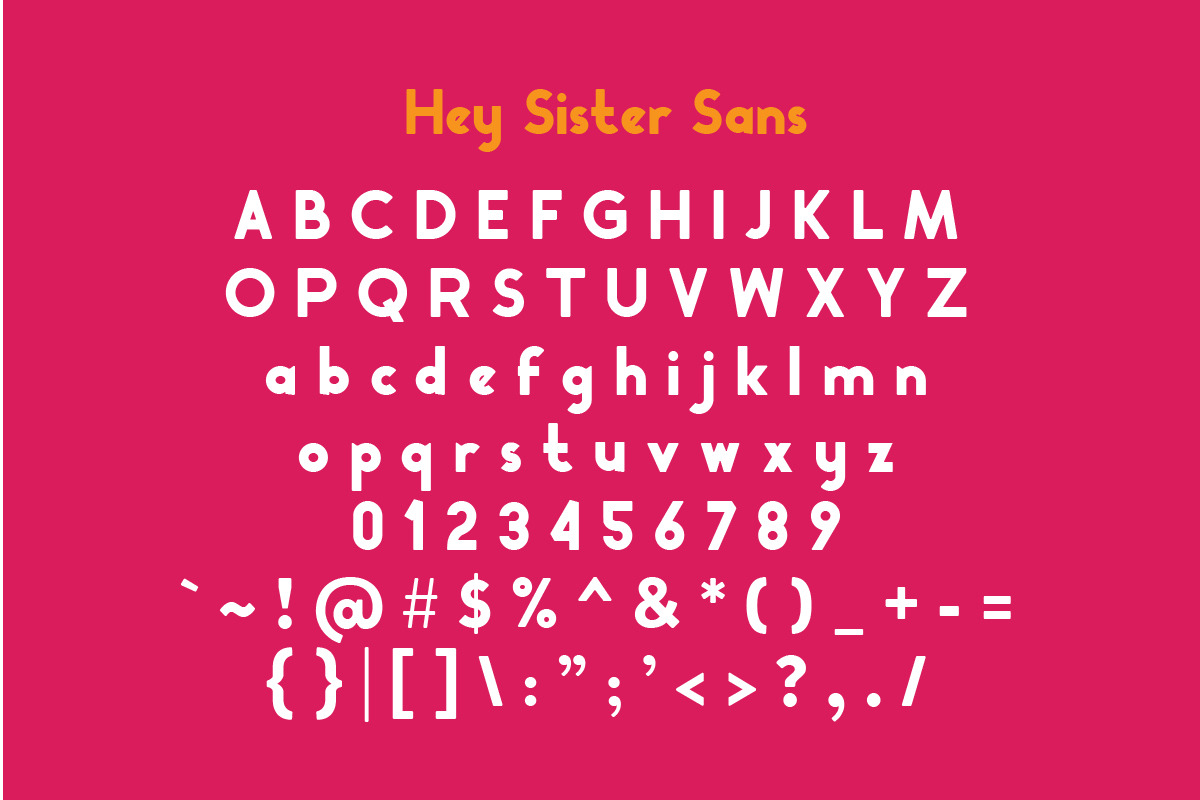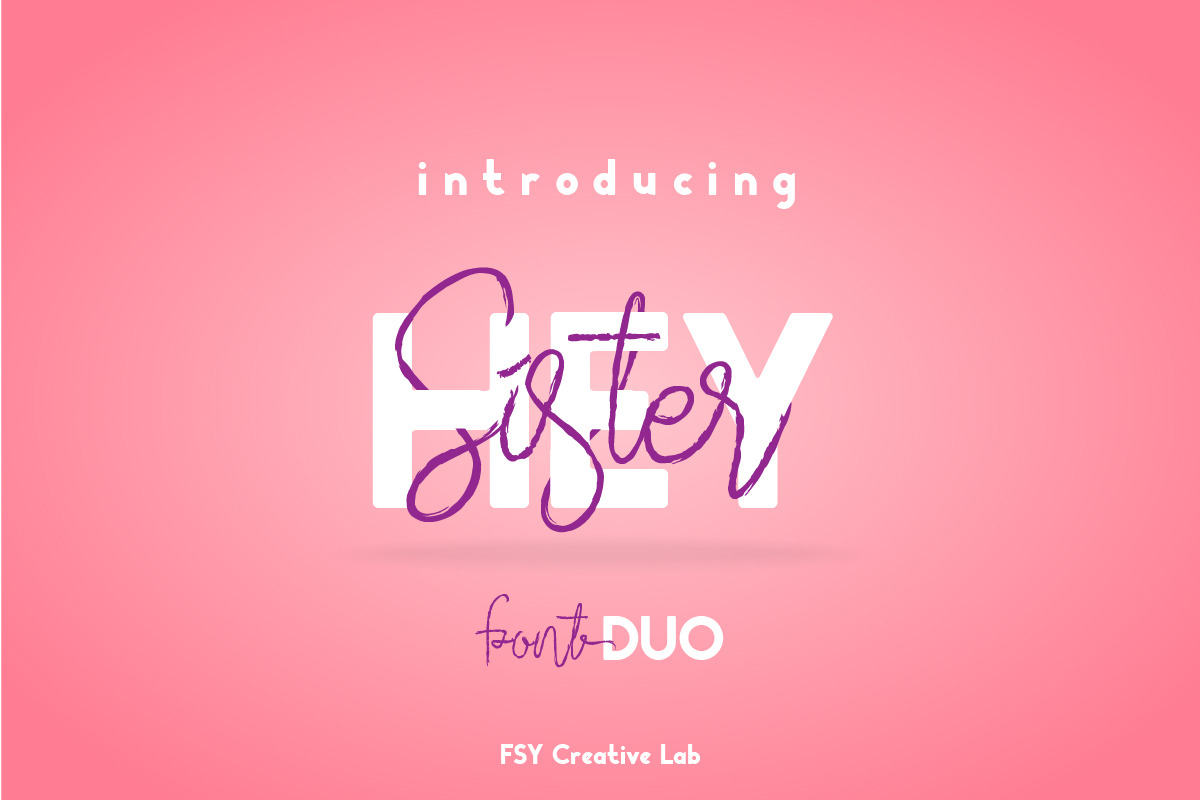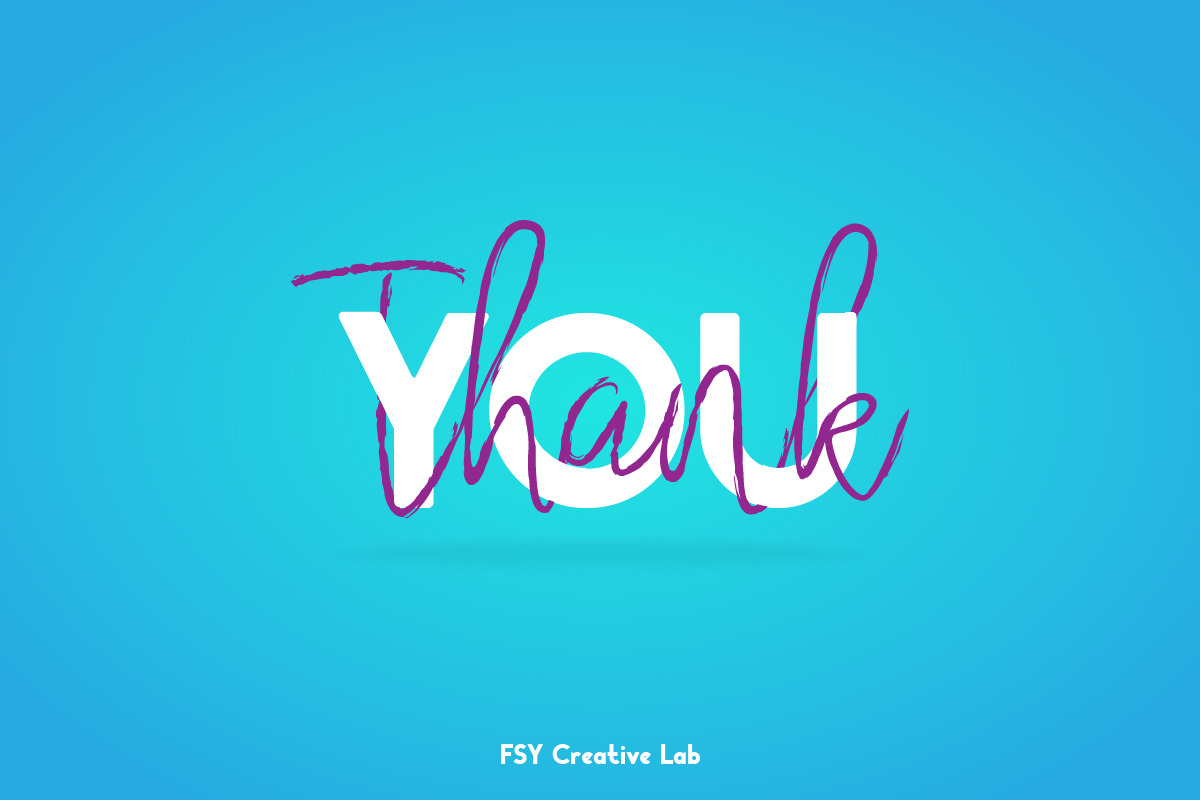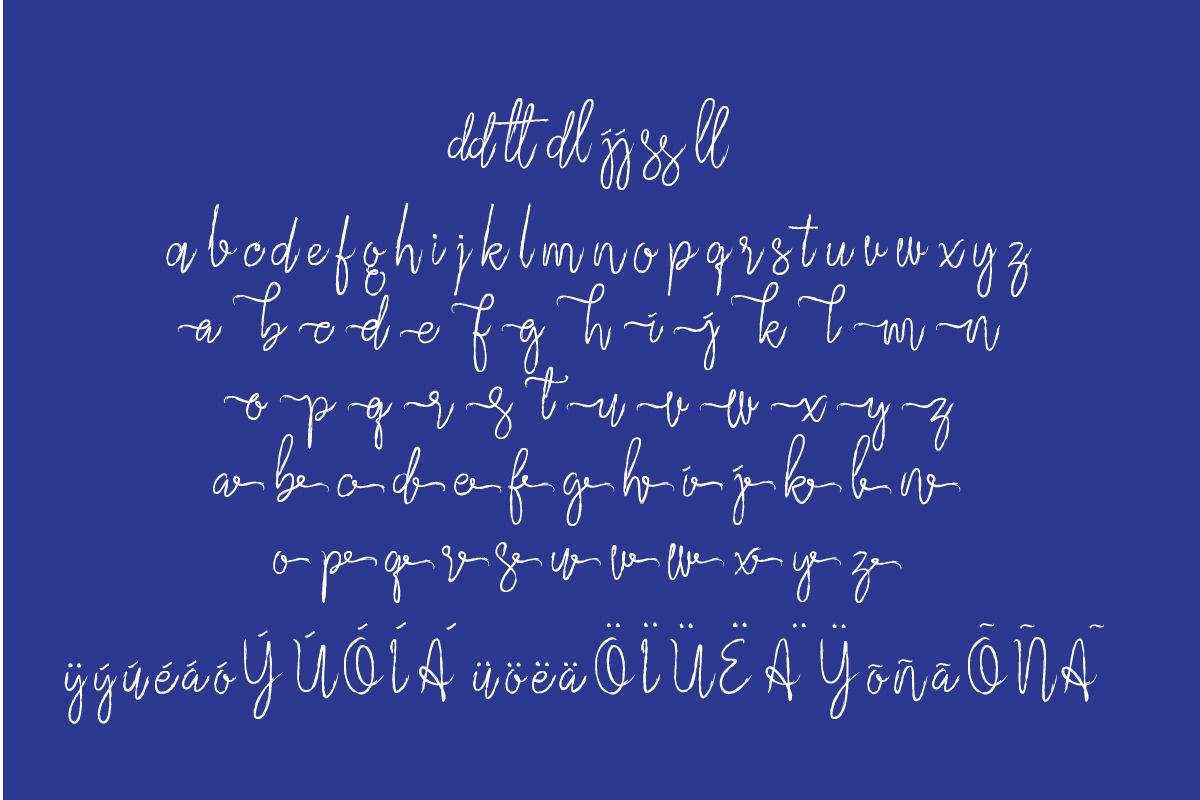
Hey Sister Font Duo
Introducing: Hey Sister Font Duo, a dry brush script font is combined with the bold sans font with soft curves in every corner, which makes this font very suitable for your design needs such as promotional media, merchandise, even in making a logo.
1. Hey Sister Script A handwritten font containing upper script & lowercase characters, numerals, ligature and alternate
2. Hey Sister Sans Sans font with soft curves in each corner with a bold appearance.